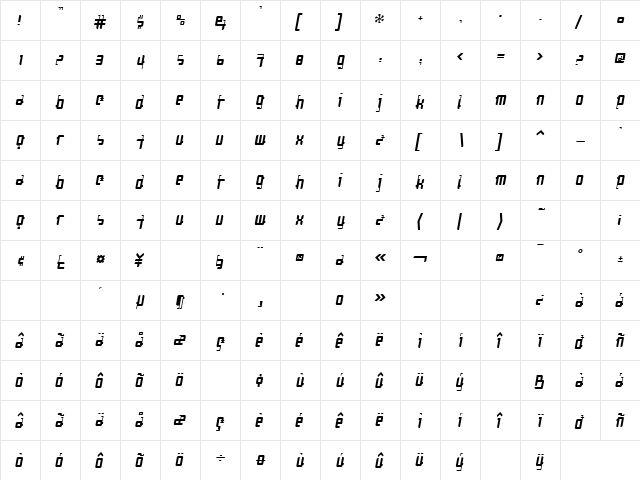
Cosmonaut CentripetalOblique
Design Context for Cosmonaut Typeface
Cosmonaut takes a measured approach to typography — its balanced proportions and neutral character make it a reliable workhorse for both digital and print work. The dynamic lean of this cut emphasises speed and emphasis in any layout.
Pro Tip: Use Cosmonaut for emphasis, pull quotes, and subheadings where its slanted energy can add rhythm to the layout.